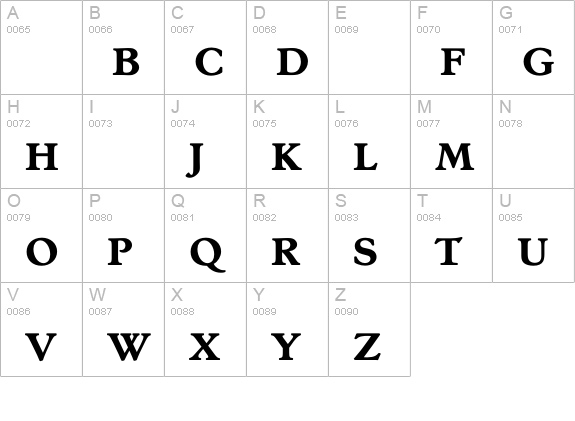
StanhopeBold Font Details
Introducing StanhopeBold, a bold and confident font that exudes strength and elegance. With its sleek and modern design, this typeface commands attention and makes a powerful statement in any project. The bold weight of StanhopeBold creates a striking visual impact, making it perfect for headlines, logos, branding, and other display purposes. Its clean lines and sharp edges convey a sense of professionalism and sophistication, while its generous letter spacing ensures optimal legibility, even at smaller sizes. But what truly sets StanhopeBold apart is the fact that it is completely free. Yes, you read that right – this exceptional font is freely available to download at FontsMarket.com. With just a few clicks, you can add this premium quality typeface to your font library without spending a dime. Whether you're a graphic designer, a marketing professional, or simply someone looking to add a touch of elegance to your personal projects, StanhopeBold is the perfect choice. Its versatility and timeless appeal make it suitable for a wide range of applications, from print materials to digital designs. So why wait? Download StanhopeBold today from FontsMarket.com, and unleash the power of this remarkable font in your creative endeavors. With its bold presence, outstanding quality, and the fact that it won't cost you a penny, StanhopeBold is truly a font to be reckoned with.